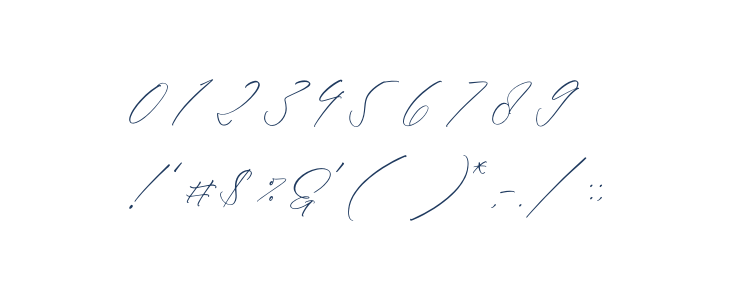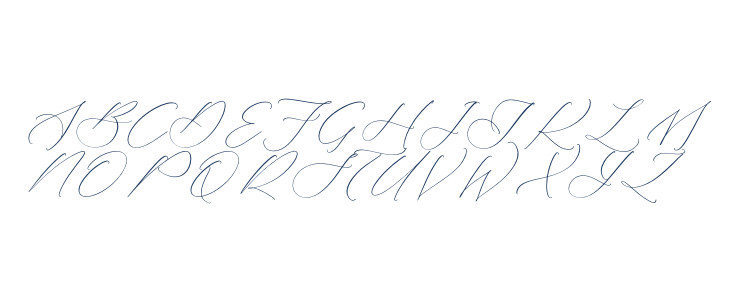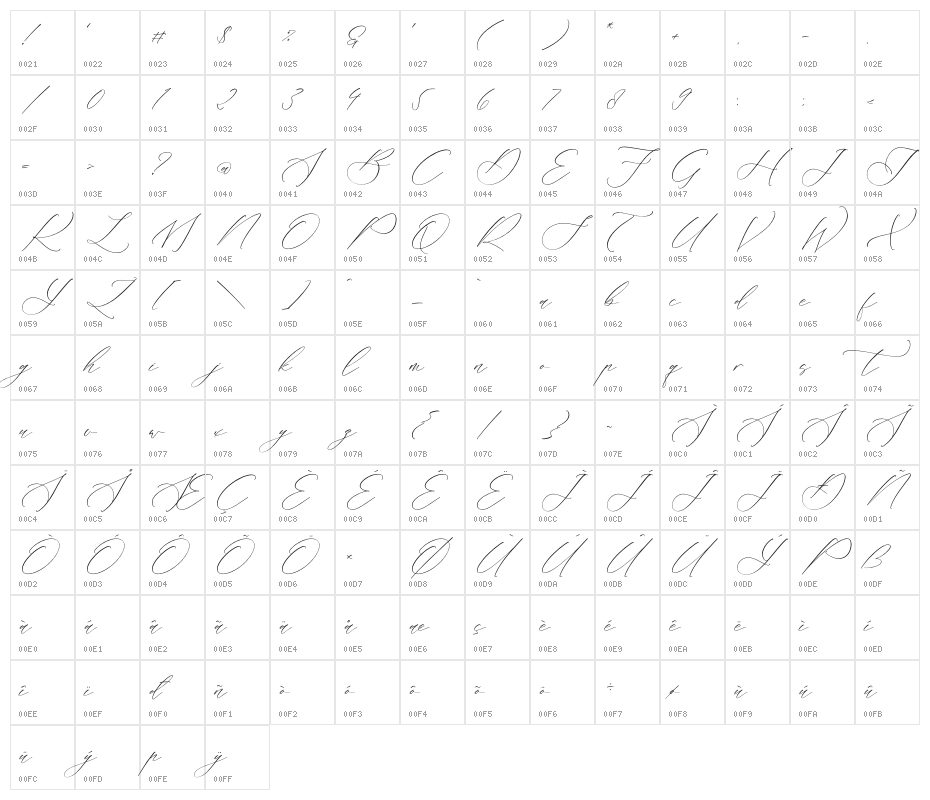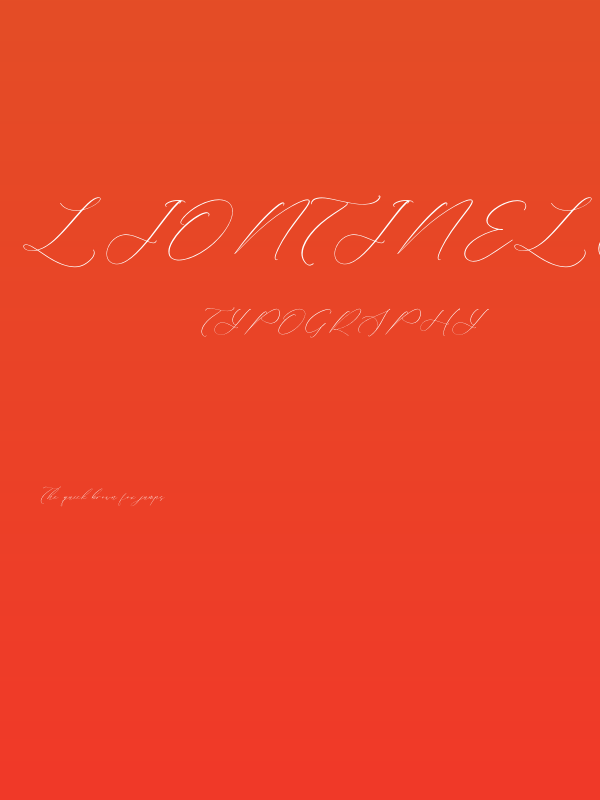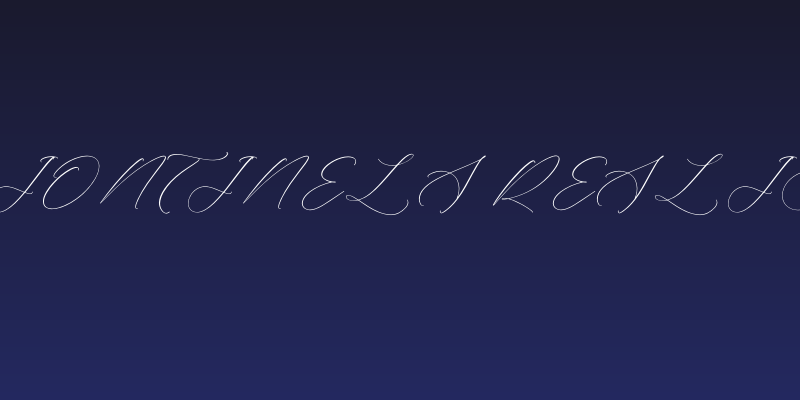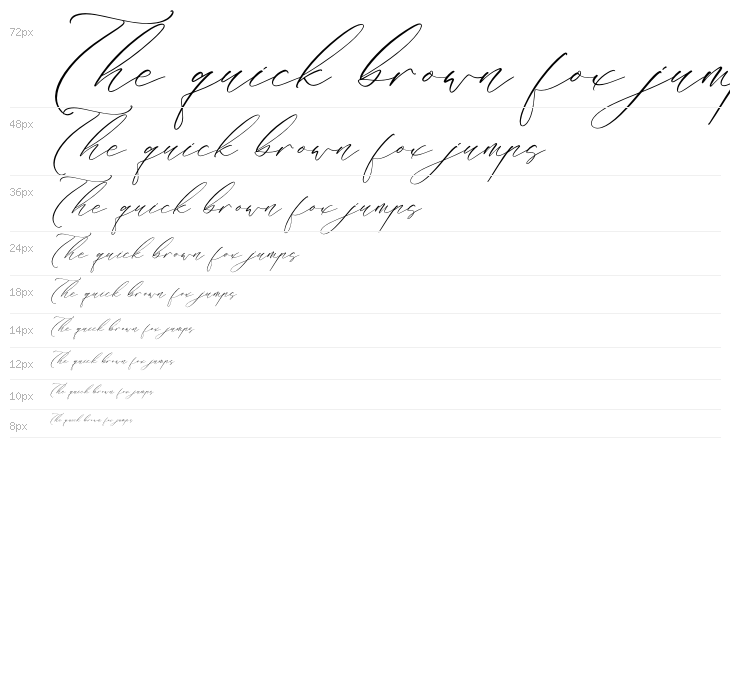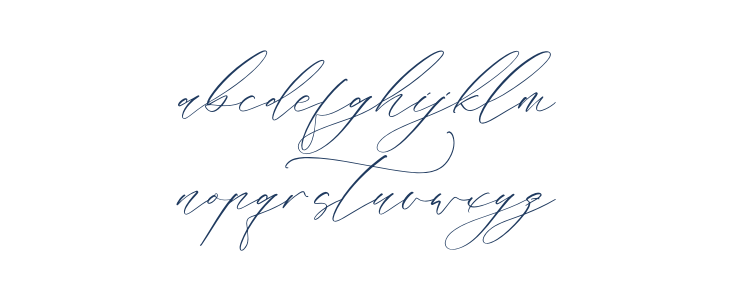
Liontinela Realise Font
Liontinela Realise Description
Elegant, flowing script font with high contrast and delicate, thin strokes, featuring ornate swashes and a handwritten, calligraphic appearance. The uppercase and lowercase letters are highly stylized, with some exaggerated ascenders and descenders, and the numerals and punctuation are consistent with the overall graceful style.
| Overall Style | Decorative, Elegant, Handwritten |
| Use Case | Logos, Headlines, Invitations, Decorative text |
| Proposed Projects | Wedding invitations, luxury branding, personal signatures, greeting cards, event posters, elegant packaging. |